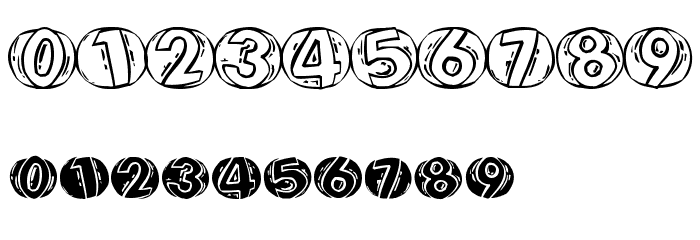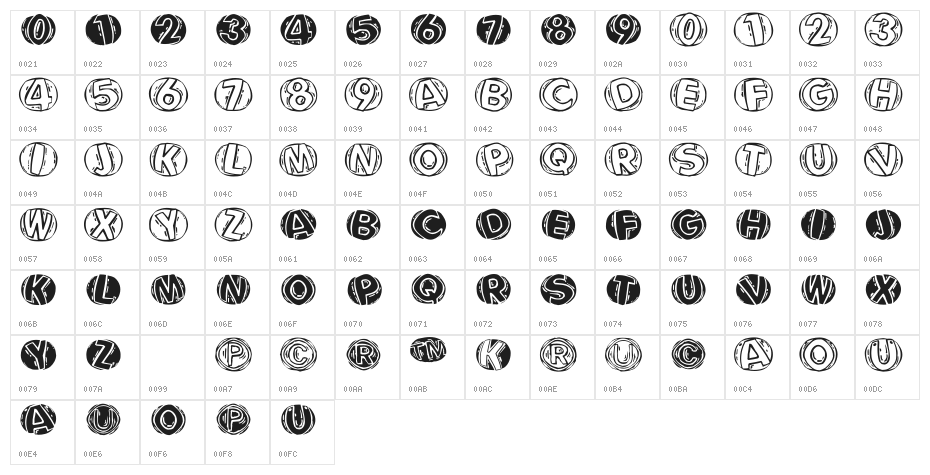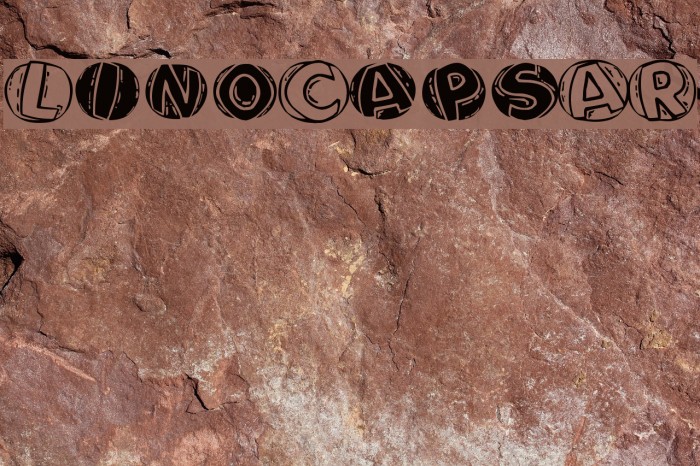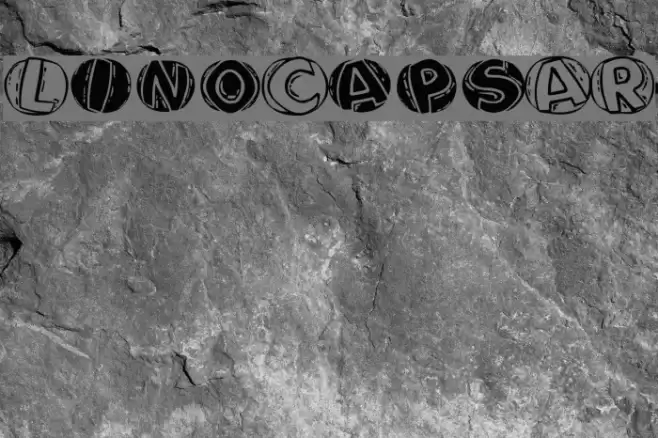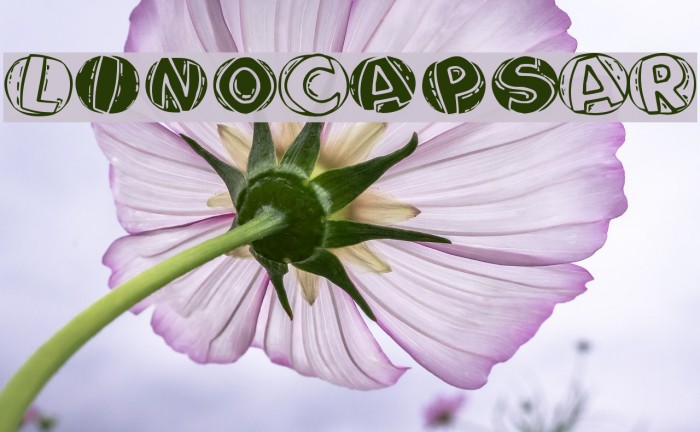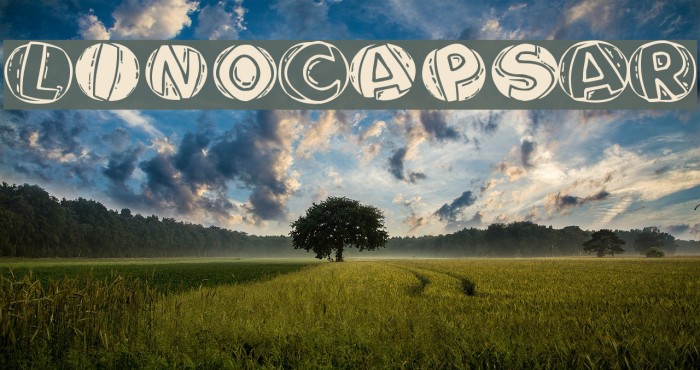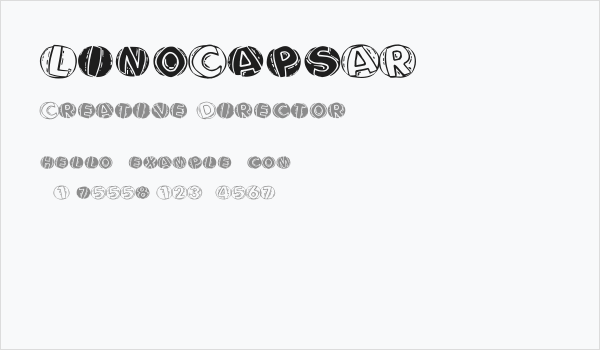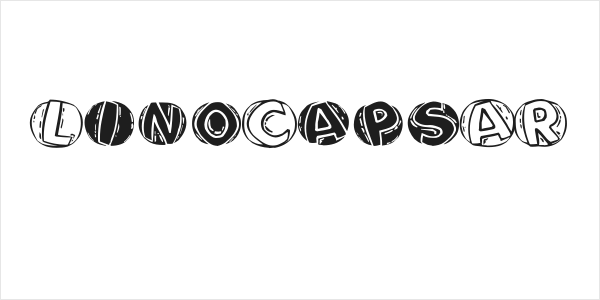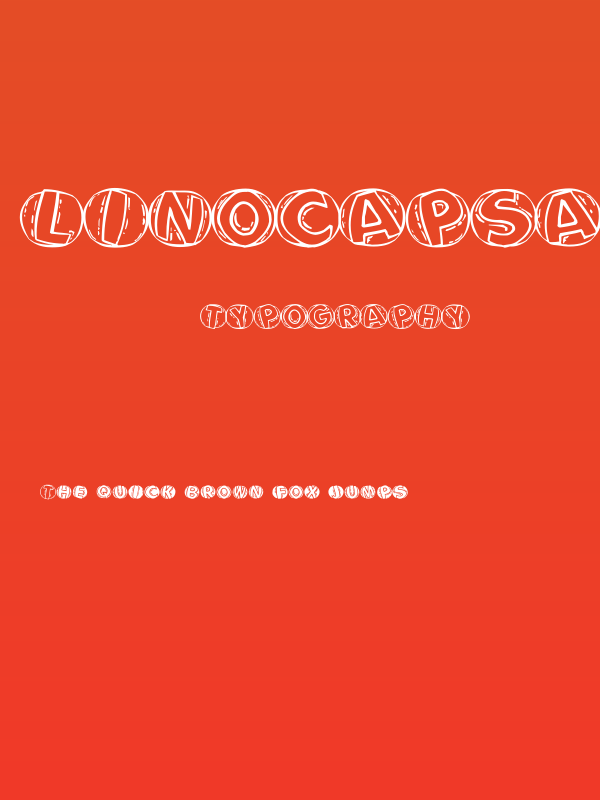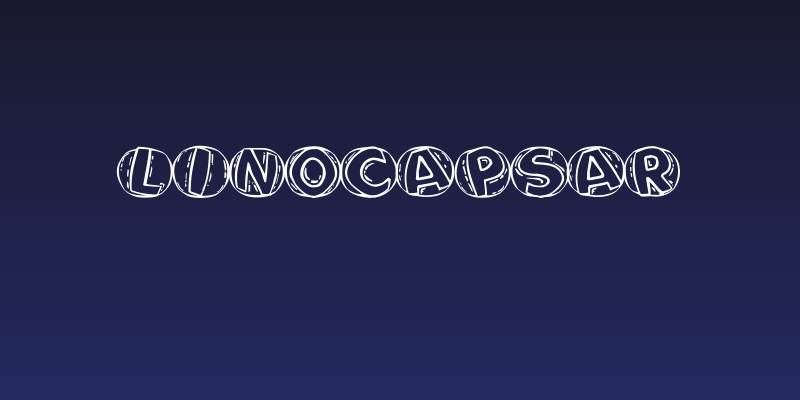
LinoCapsAR Font
LinoCapsAR Description
This font features a bold, playful design with each character enclosed in a circular shape, giving it a unique and eye-catching appearance. The letters and numbers are styled with a hand-drawn, sketch-like quality, adding a sense of whimsy and creativity. The characters are filled with a mix of solid and outlined strokes, creating a dynamic contrast that enhances their visibility. This font is ideal for projects that require a fun and informal touch, such as children's books, posters, or creative branding. The overall style is decorative and modern, making it suitable for various design applications.
| Proposed Projects | Ideal for children's books, posters, and creative branding. |